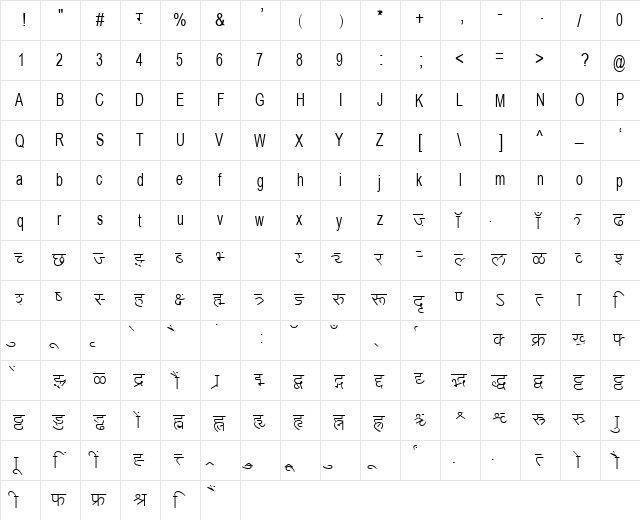
AkrutiOfficeYoginiLight Normal
Design Context for AkrutiOfficeYoginiLight Typeface
AkrutiOfficeYoginiLight is a composed and adaptable typeface that performs quietly and consistently across a wide range of design contexts. Its slender proportions lend an understated elegance to any composition.